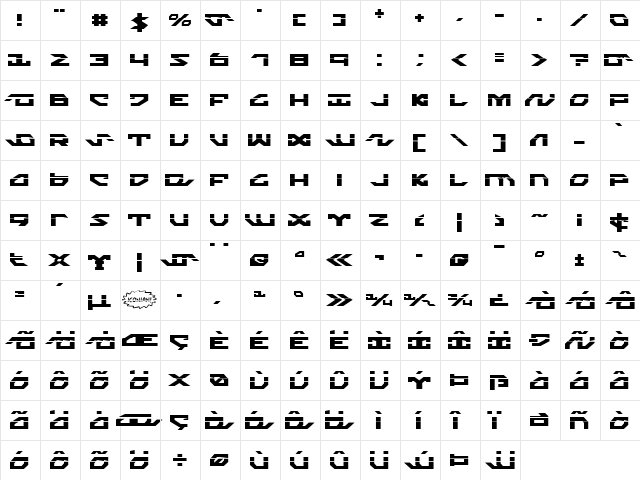
Nightrunner Laser Laser
Design Context for Nightrunner Laser Typeface
Nightrunner Laser is a composed and adaptable typeface that performs quietly and consistently across a wide range of design contexts.